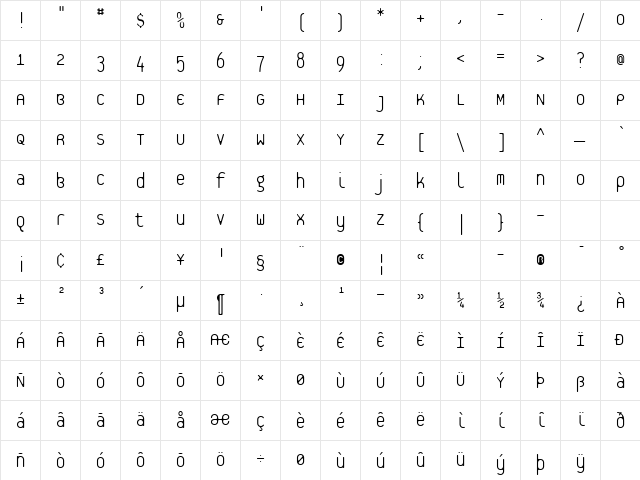
PlateletThin Regular Free Font
PlateletThin Regular
PlateletThin Family
PlateletThin Regular
Design Context for PlateletThin
PlateletThin is a composed and adaptable typeface that performs quietly and consistently across a wide range of design contexts. Its slender proportions lend an understated elegance to any composition.